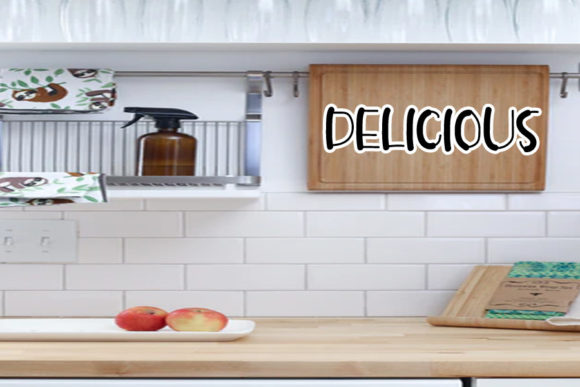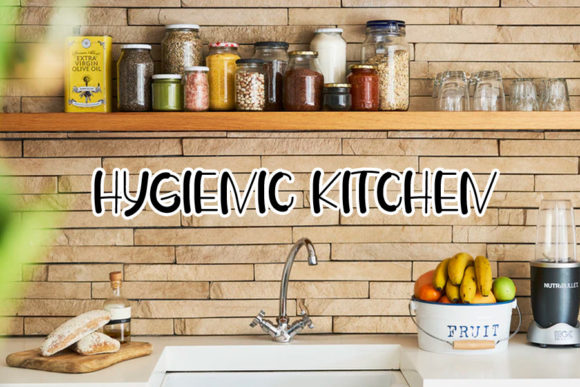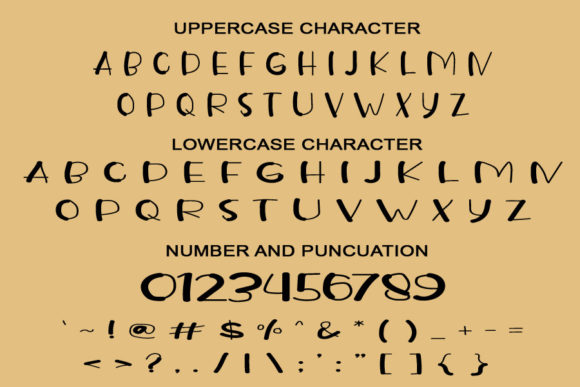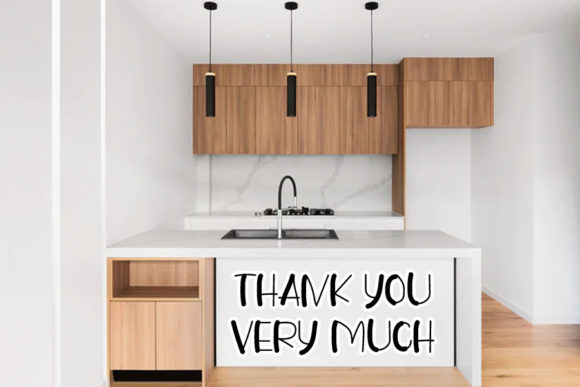
The Ultimate Guide to Chef Kitchen Font: Elevate Your Designs with a Trendy Twist
I’ll never forget the time I was working on a branding project for a trendy café, and I just couldn’t find the perfect font to capture their quirky vibe. The client wanted something that would make their Instagram feed pop, and I was determined to deliver. That’s when I stumbled upon the Chef Kitchen font, and it was love at first sight! 💕
Chef Kitchen is a trendy, quirky, and cool handwritten font that’s perfect for designers, crafters, and creative hobbyists looking to add a personal touch to their projects. In this article, we’ll dive into the world of Chef Kitchen, exploring its features, how to use it on different platforms, and some similar fonts you might love.
An Honest Review of Chef Kitchen Font
So, what makes Chef Kitchen font so special? Let’s take a closer look:
- ✨ Unique and quirky personality: Chef Kitchen has a one-of-a-kind charm that will make your designs stand out from the crowd.
- ✅ Easy to read: Despite its playful nature, Chef Kitchen is surprisingly legible, making it perfect for body text and captions.
- 💫 Versatile: This font is suitable for a wide range of projects, from social media graphics to DIY crafts and even branding materials.
However, no font is perfect, and Chef Kitchen has a few minor quirks:
- ⚠️ Limited use in formal contexts: Due to its playful nature, Chef Kitchen might not be the best fit for formal documents, such as resumes or business reports.
- 🤔 Some letter combinations might not work well: As with any handwritten font, some letter combinations might not flow as smoothly as you’d like.
The Backstory of Chef Kitchen Font
According to the designer, Chef Kitchen was inspired by the vibrant colors and playful energy of a bustling kitchen. The goal was to create a font that would capture the creativity and spontaneity of cooking and food culture.
| Font Name | Chef Kitchen Font |
| Author | ABBAsalam |
| What makes Chef Kitchen font so special? | Chef Kitchen has a unique and quirky personality that makes it perfect for designs that need a touch of whimsy. |
| Is Chef Kitchen suitable for body text? | While Chef Kitchen is primarily designed for headlines and titles, it’s surprisingly legible and can be used for short blocks of body text. |